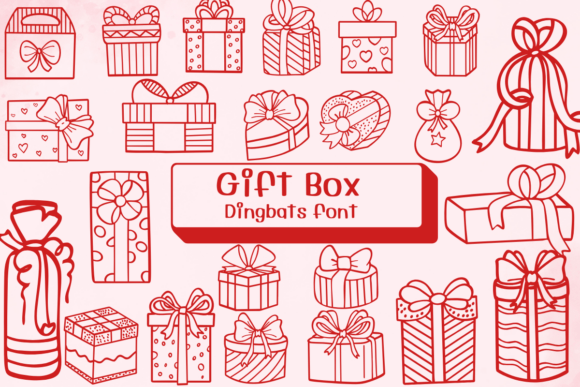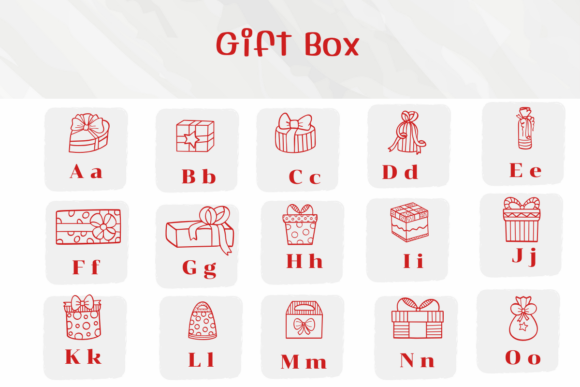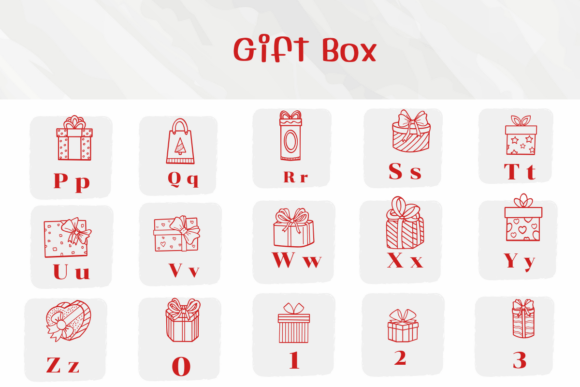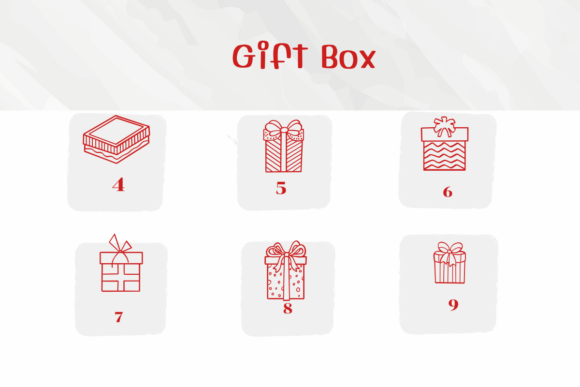
Gift Box Font
About the Gift Box Font
Welcome to the world of Gift Box Font, a typeface that will inspire your next great project. Gift Box is a fun and creative font filled with gift box shapes instead of letters. Each character on your keyboard turns into a unique gift box design. It’s perfect for party invitations, holiday cards, or adding a festive touch to your projects! 🎁
Gift Box Font’s playful nature makes it ideal for projects requiring a fun, celebratory feel. It shines in headlines, short taglines, and packaging design for products targeting a younger demographic or those with a whimsical brand identity. Avoid using it for body text or extended passages; its novelty quickly becomes overwhelming in larger blocks.
Consider pairing Gift Box with a clean sans-serif like Open Sans for readability in supporting text or a classic serif like Playfair Display for a touch of elegance to balance its whimsicality. A simple geometric sans-serif could also provide a modern contrast.
The font’s overall personality is undeniably cheerful and celebratory, making it a strong choice for brands associated with gifts, parties, children’s products, or seasonal promotions. Its playful nature, however, may not be suitable for serious or corporate branding.
Gift Box Font Usage Examples
Gift Box Font Example